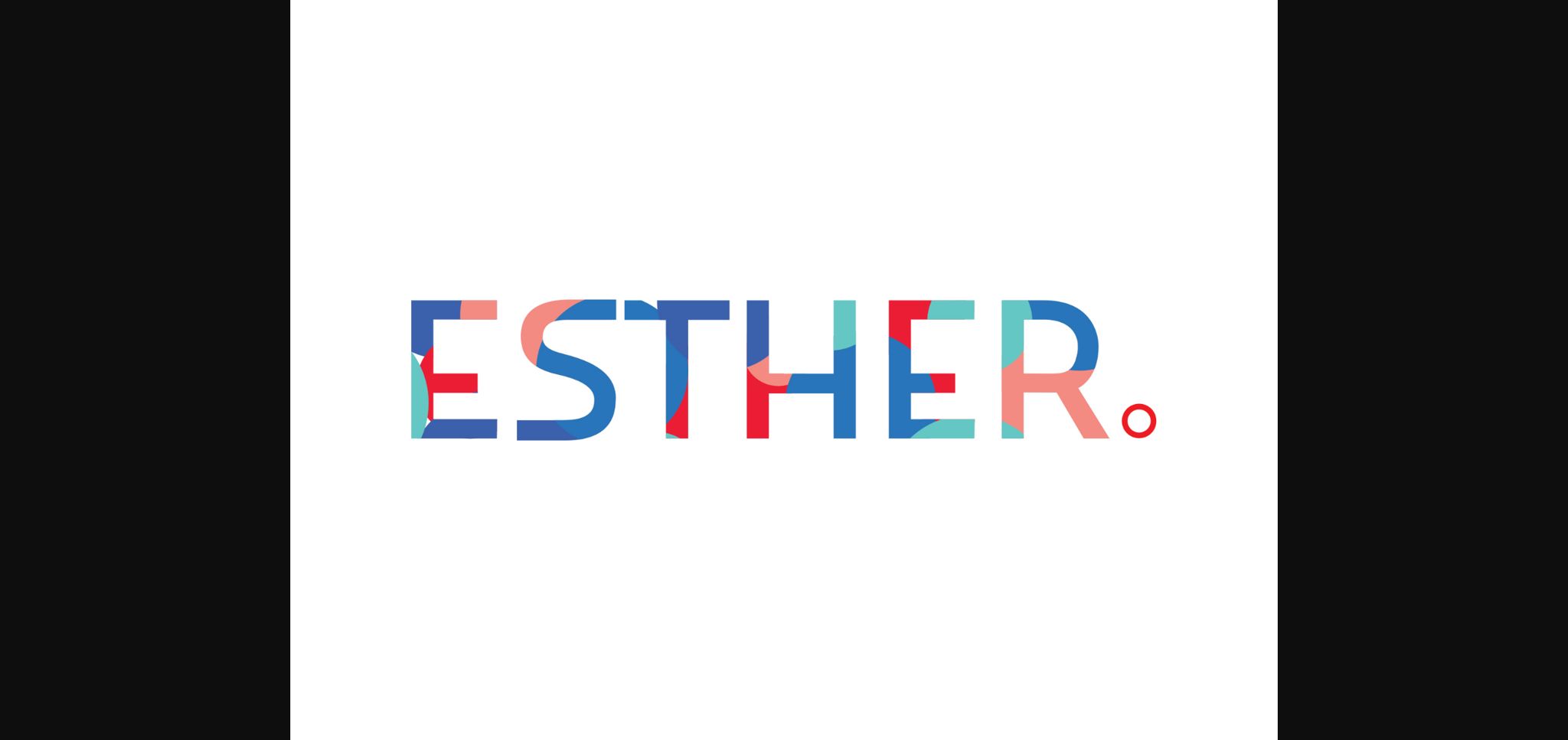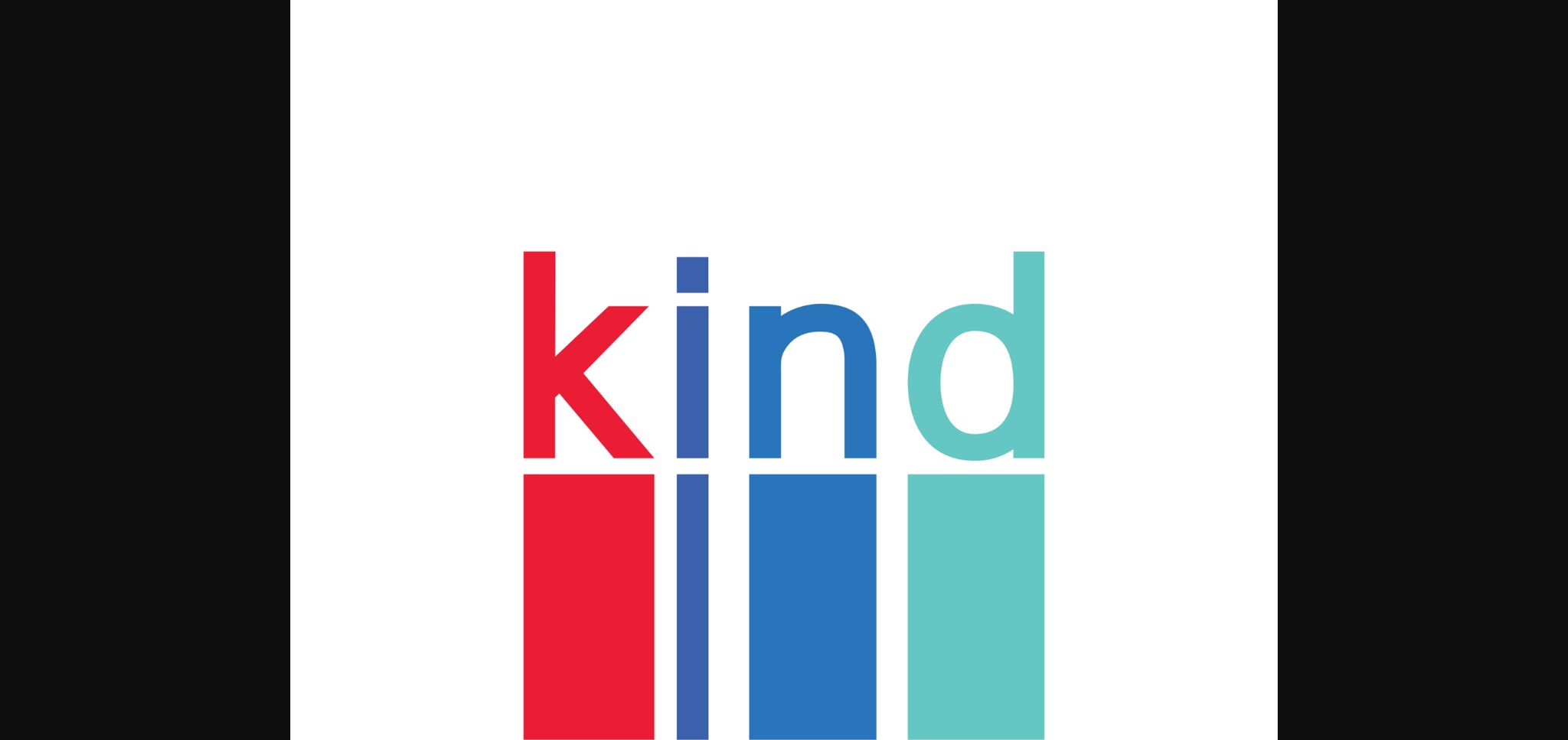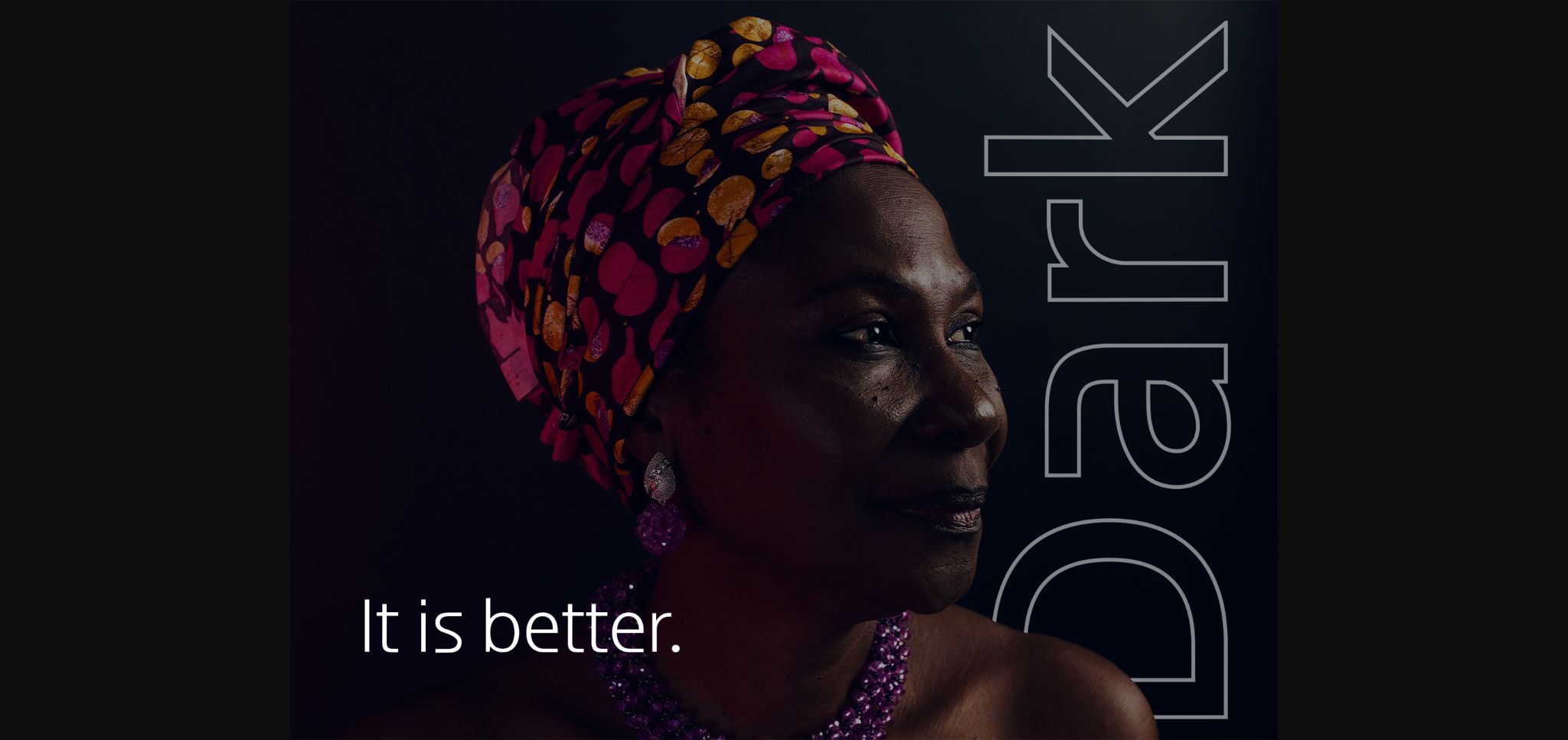
About Esther Font
Esther is a simple and minimal sans serif font. Natural and casual, this font will complement any design idea you have in mind. This is a unique typeface for headlines, big text, branding, logotypes & display usage. This unique typeface is best for creating outstanding logos, promotional content and marketing graphics that can really grab attention from your visitors.